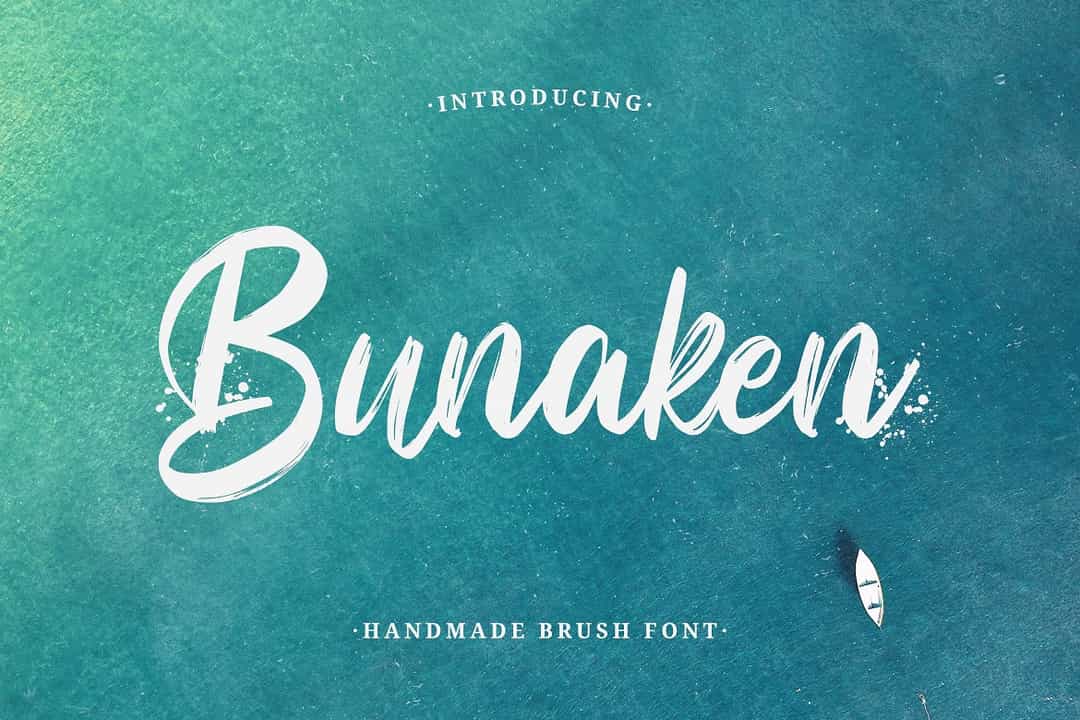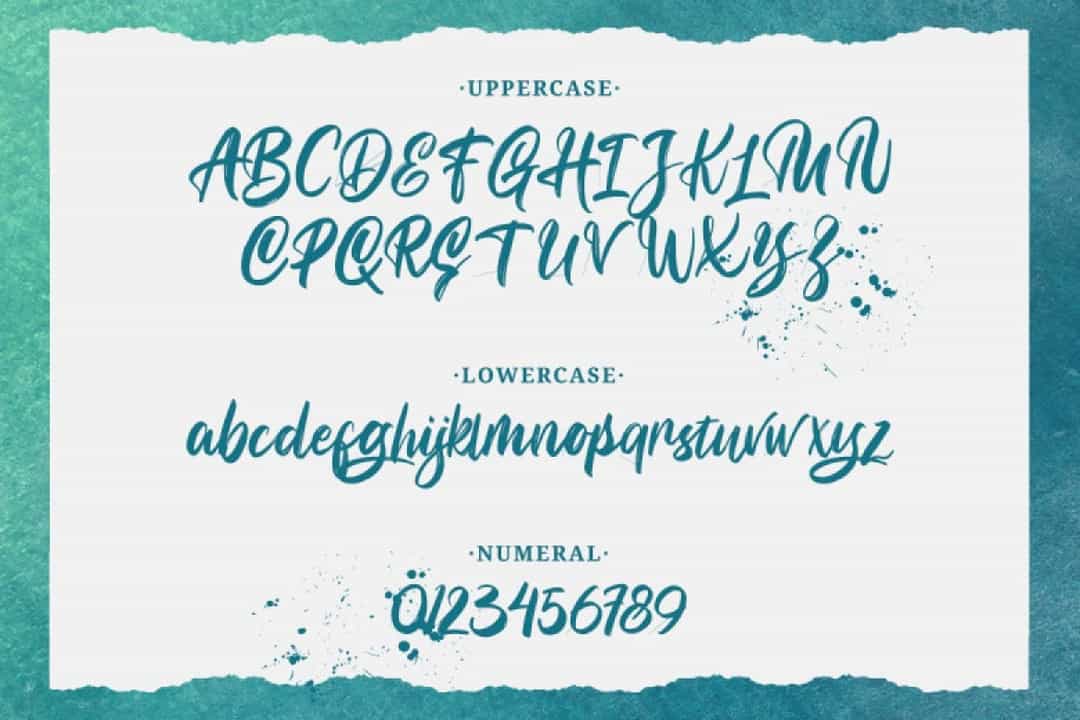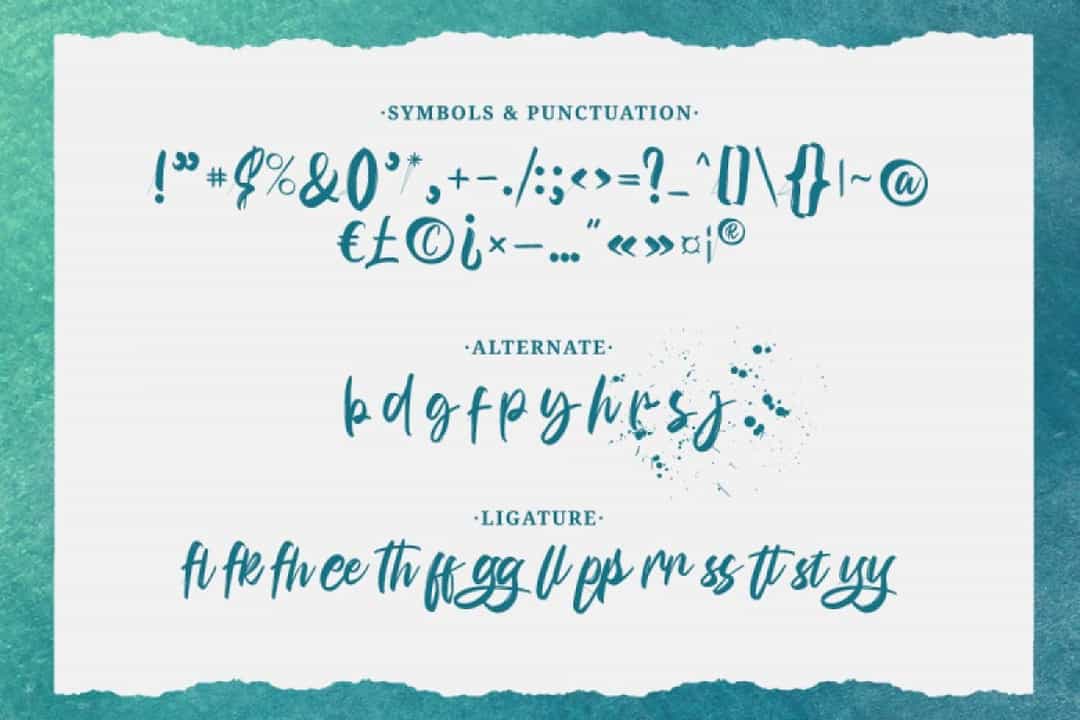
Bunaken Brush font is both striking and sophisticated, featuring long and chunky characters which look particularly effective when used for packaging, branding, logo design, or more. This masterfully designed brush script is a true must-have.